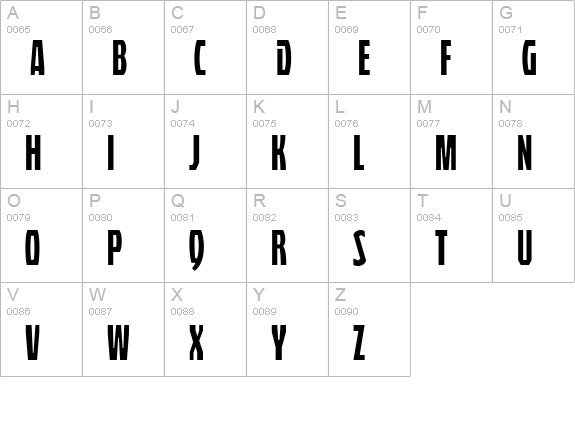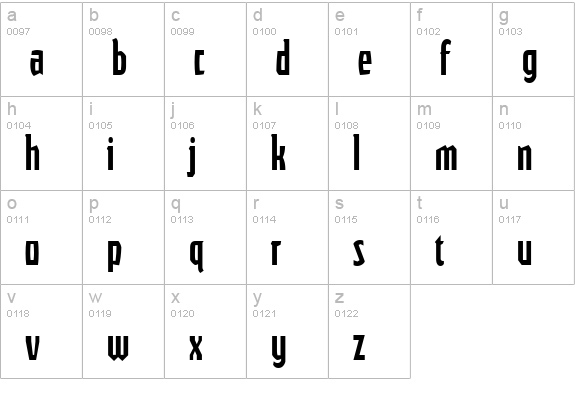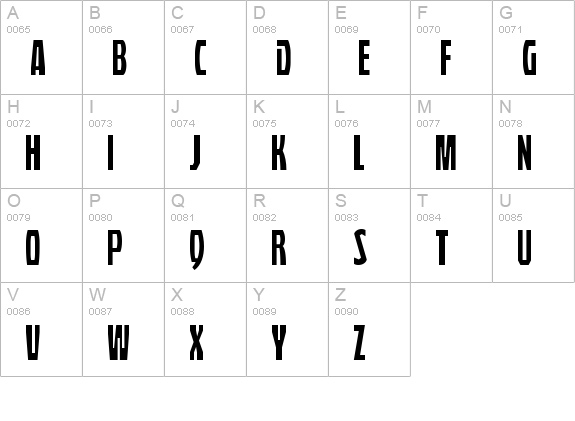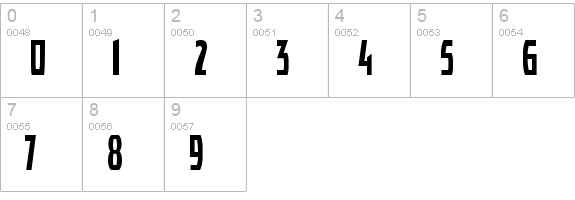
Quasix Font Details
Quasix font is a modern and stylish typeface that exudes elegance and sophistication. With its clean lines and unique design, Quasix is perfect for a wide range of design projects, from branding to editorial design. This versatile font features a sleek and contemporary look that will instantly elevate any project it is used in. What sets Quasix font apart is its seamless blend of classic and modern elements, making it a standout choice for designers looking to make a statement. Its bold yet sophisticated appearance makes it ideal for headlines, logos, posters, and more. Whether you're designing a sleek corporate brochure or a trendy fashion magazine, Quasix font is sure to make your text pop. The best part? Quasix font is completely free to download at FontsMarket.com. So go ahead and give your designs a fresh and modern look with this stunning typeface. Elevate your projects with Quasix font today and make a lasting impression with its sleek and stylish appeal.